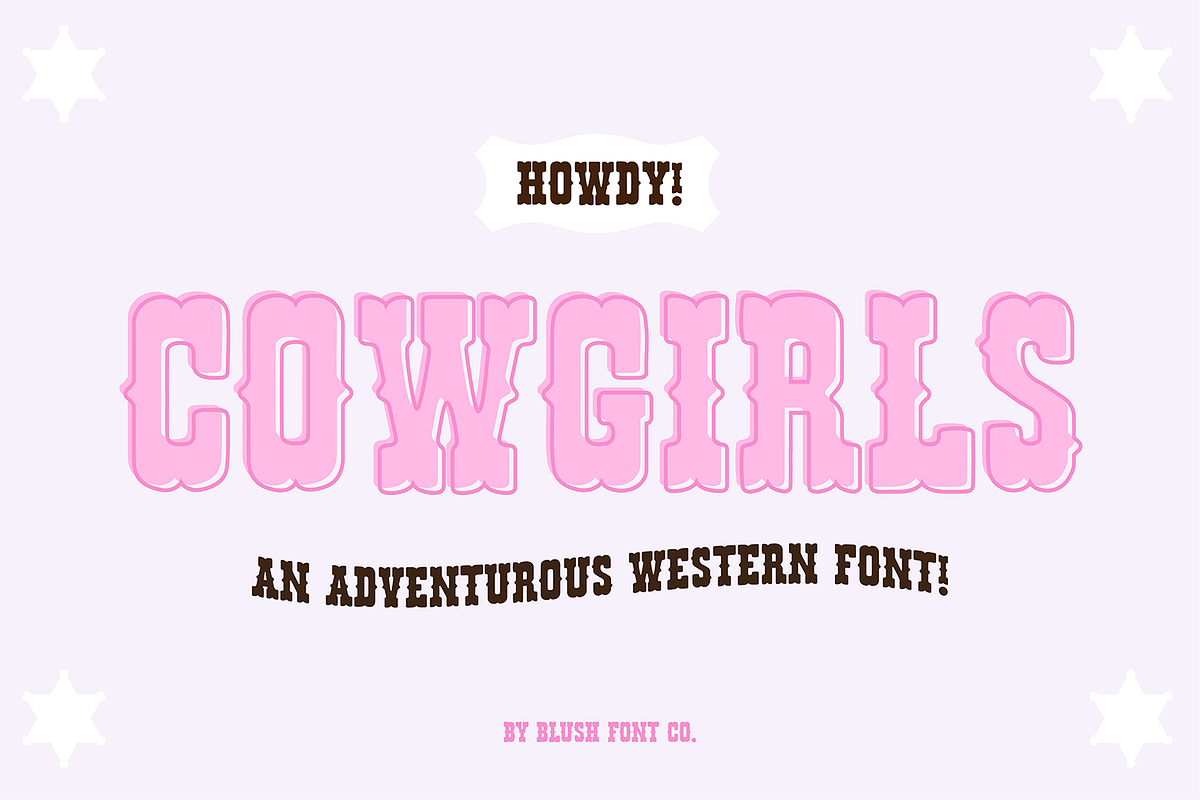
COWGIRLS Fancy Western Rodeo Font Free Download
Saddle up your designs with the COWGIRLS Fancy Western Rodeo Font Free Download — a bold, decorative typeface inspired by classic rodeo posters and wild west charm. With its ornate details and rugged style, this font is perfect for western-themed branding, event posters, country music covers, saloon signage, and cowboy-inspired apparel.
COWGIRLS brings vintage flair and strong personality to any layout, capturing the spirit of frontier style and rustic Americana. Whether you're designing for a rodeo event or a western boutique, this font adds flair that’s both fierce and fun.